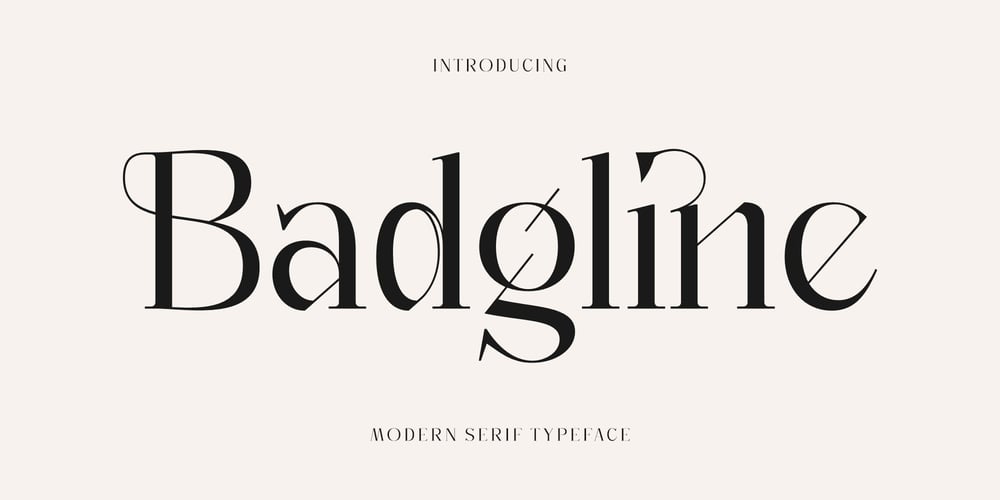
Badgline Font Family was designed by Heru Utama Putra and published by Letterena Studios. Badgline contains 2 styles and family package options. Badgline is a modern and classic serif typeface with its own unique look.This typeface is perfect for an elegant & luxurious logo, book or movie title design, fashion brand, magazine, clothes, lettering, quotes, and so much more.